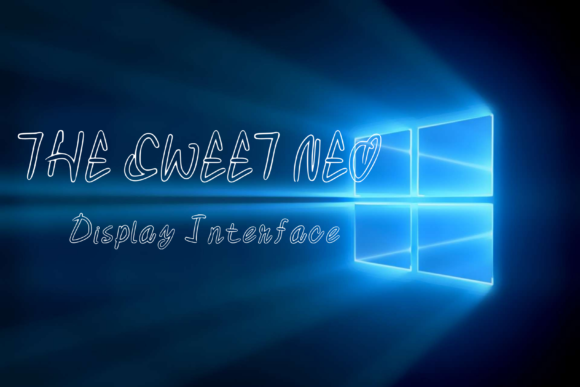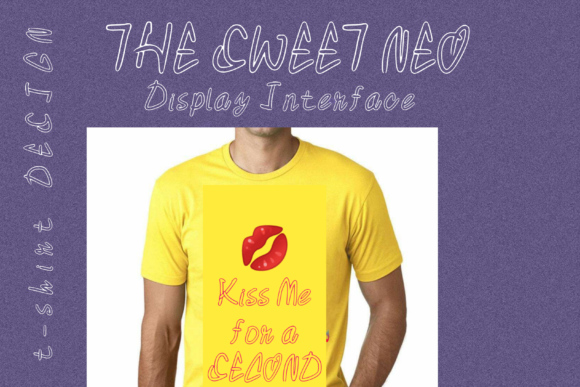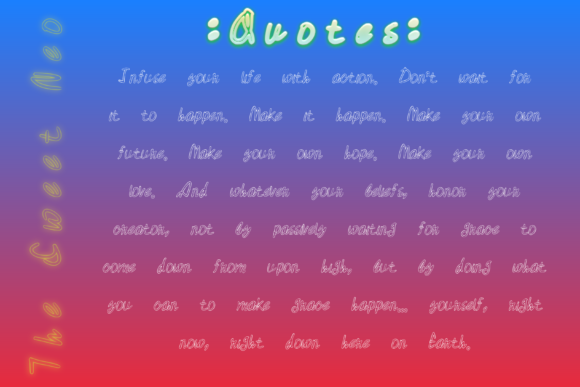
About The Sweet Neo Font
The Sweet Neo is a sweet and friendly display font. Its cute style makes it incredibly fitting to a large pool of designs.The only limit is your imagination!Fall in love with its playful style and use it to create beautiful stationary art, eye-catching social media posts, and much more!